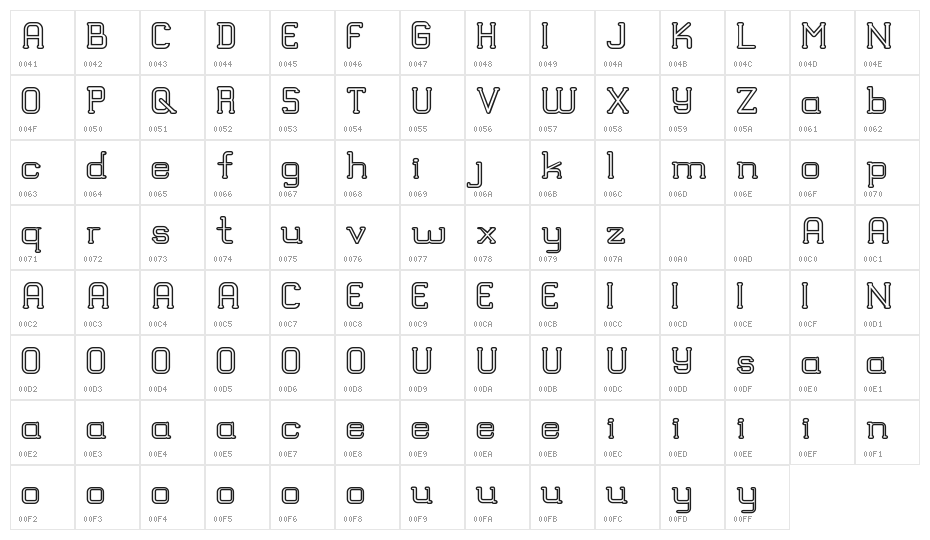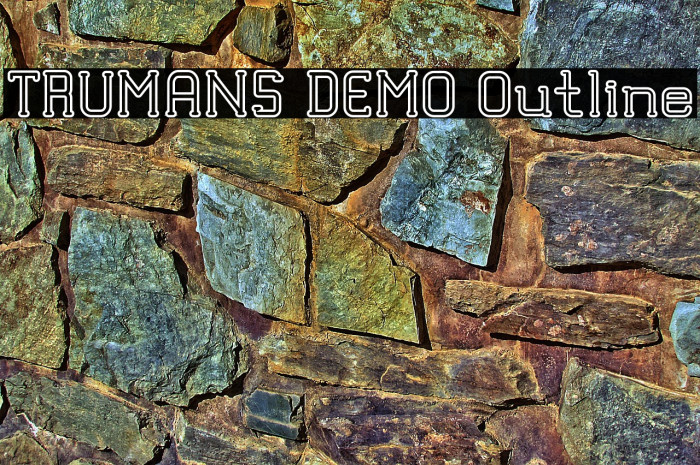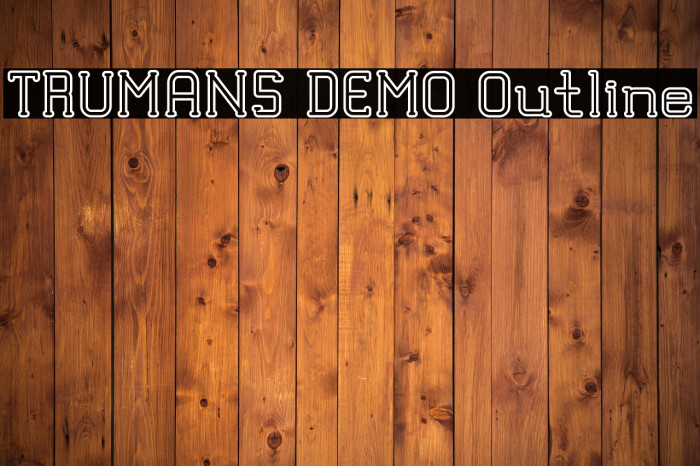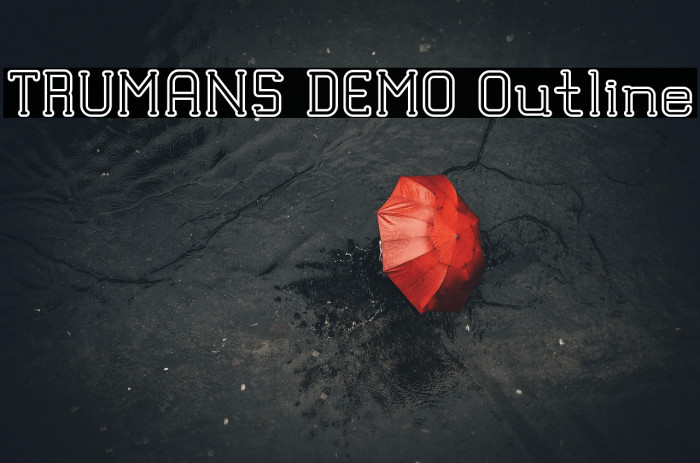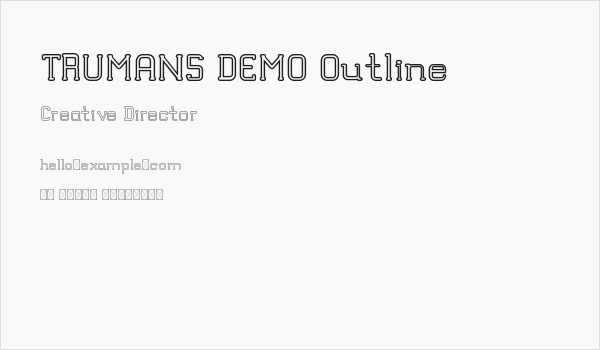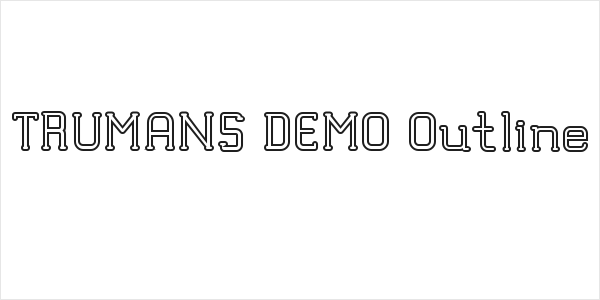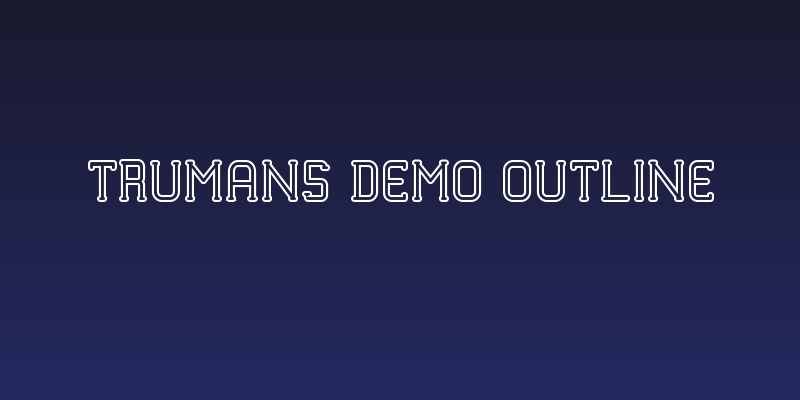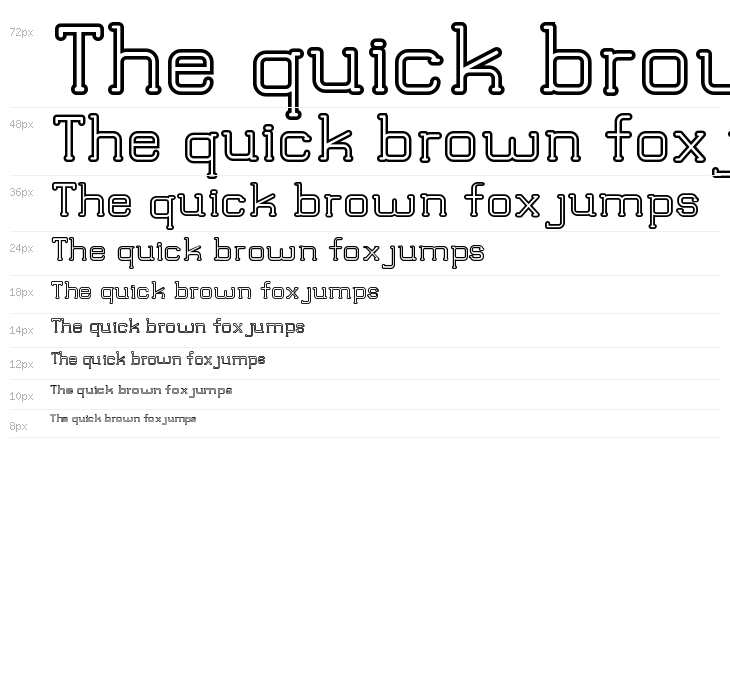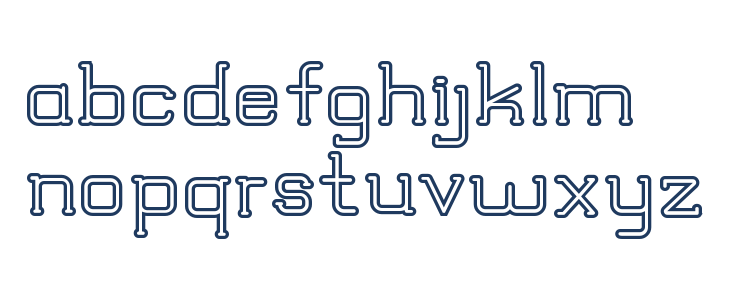
TRUMANS DEMO Outline Font
TRUMANS DEMO Outline Description
This font features a distinctive outline style that gives it a bold and striking appearance. The characters are crafted with a double-line effect, creating a hollow interior that adds depth and dimension. The uppercase and lowercase letters maintain a consistent geometric form, with clean lines and sharp angles. This design choice enhances readability while providing a modern and futuristic aesthetic. The numerals and special characters follow the same stylistic approach, ensuring uniformity across all glyphs. The font's unique outline design makes it stand out, making it ideal for projects that require a strong visual impact.